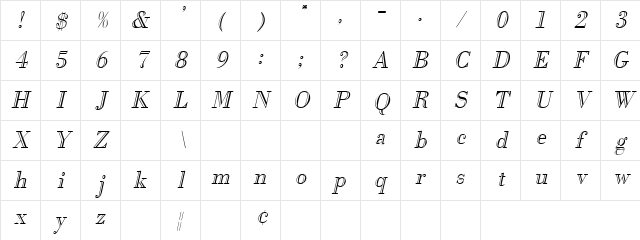
BodoniOpen Oblique
Design Context for BodoniOpen
BodoniOpen is a composed and adaptable typeface that performs quietly and consistently across a wide range of design contexts. The slanted form adds forward momentum and visual energy.
Pro Tip: Use BodoniOpen for emphasis, pull quotes, and subheadings where its slanted energy can add rhythm to the layout.